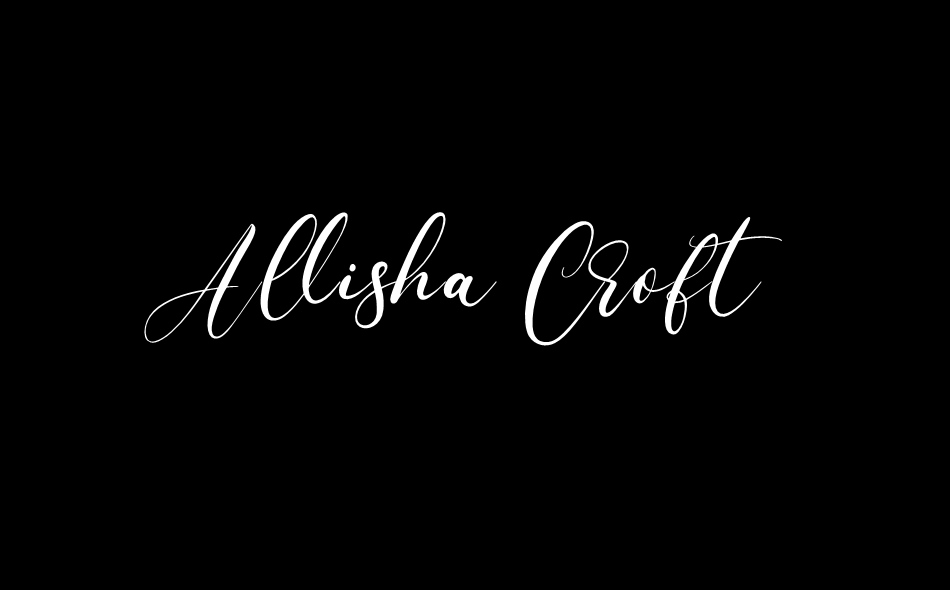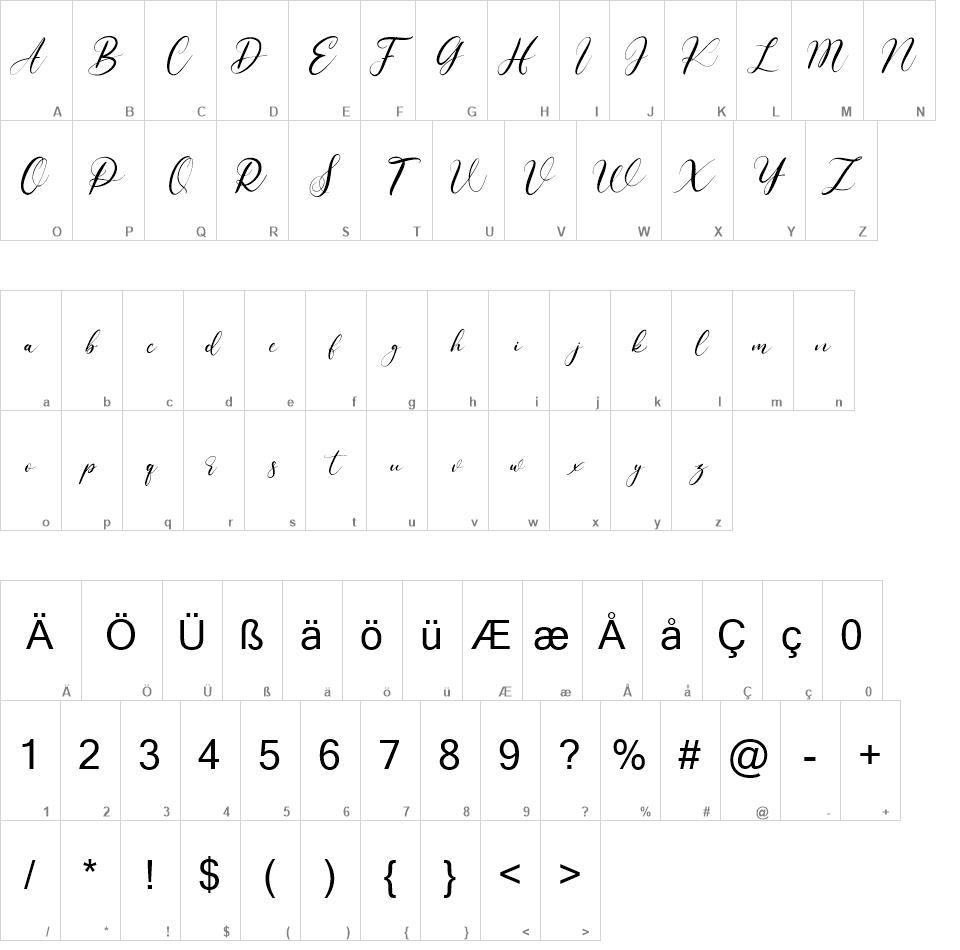
Allisha Croft font
Introducing Beauty Satine-A Signature Font
Giving you a simple, yet gorgeous solution to your branding. This font is not only just a signature font. It
encapsulates the essence of elegance and modernity. With its clean script-type design and curved
indentations, this font will take your projects to the next level! Use it for headings, logos, business cards,
printed quotes, invitations of all sorts, cards, packaging, and your website or social media branding.
Beauty Satine includes Multilingual Options to make your branding globally acceptable.